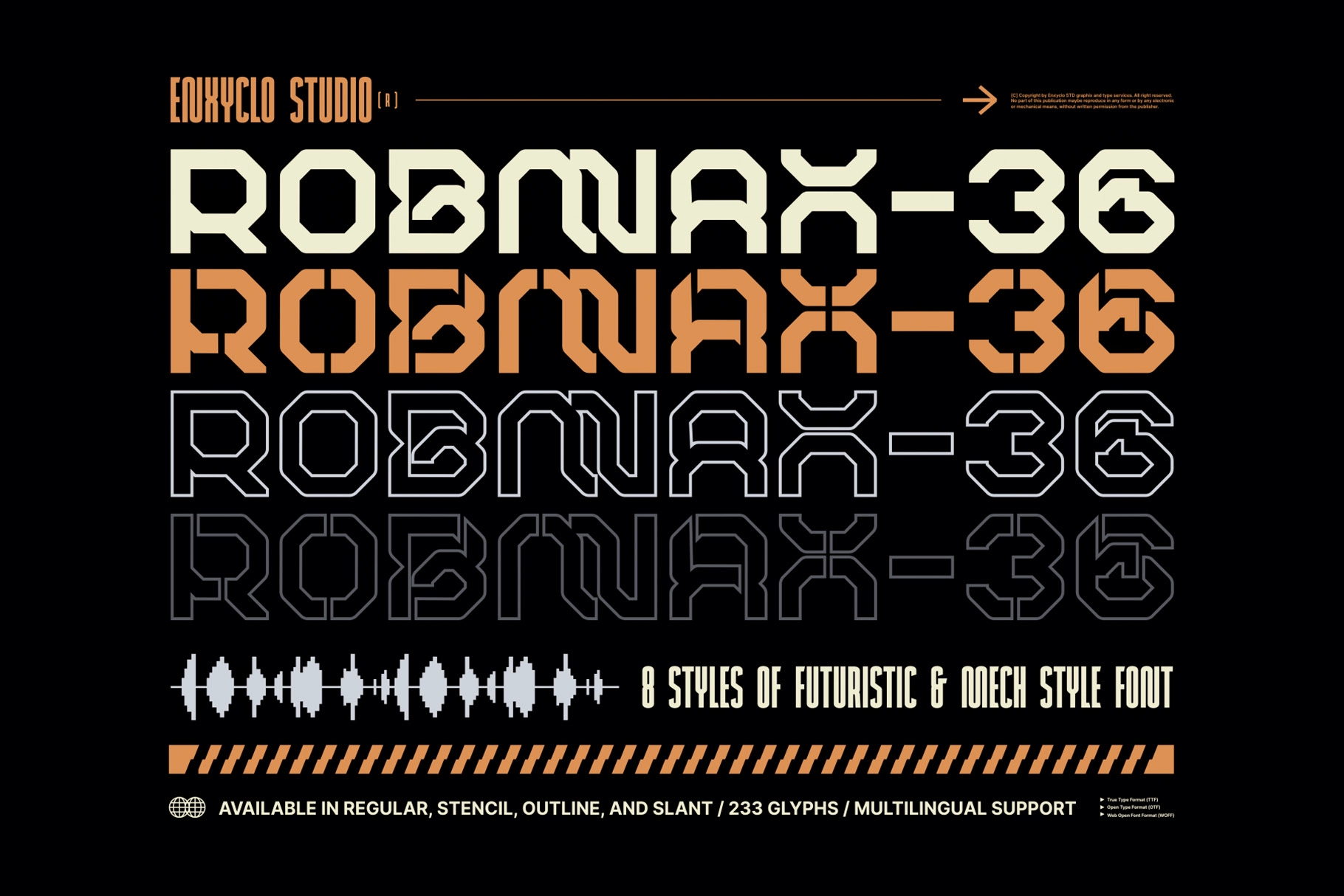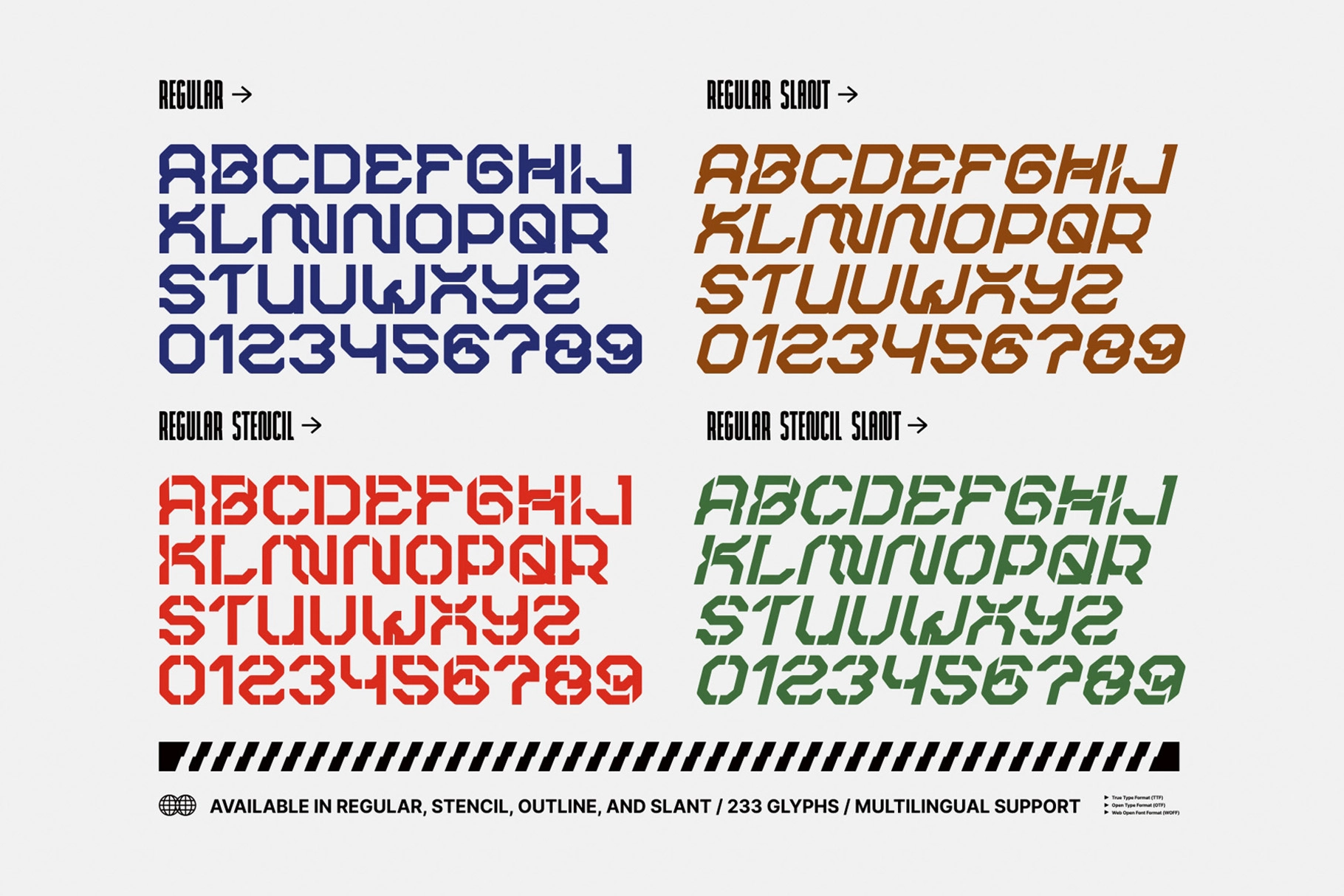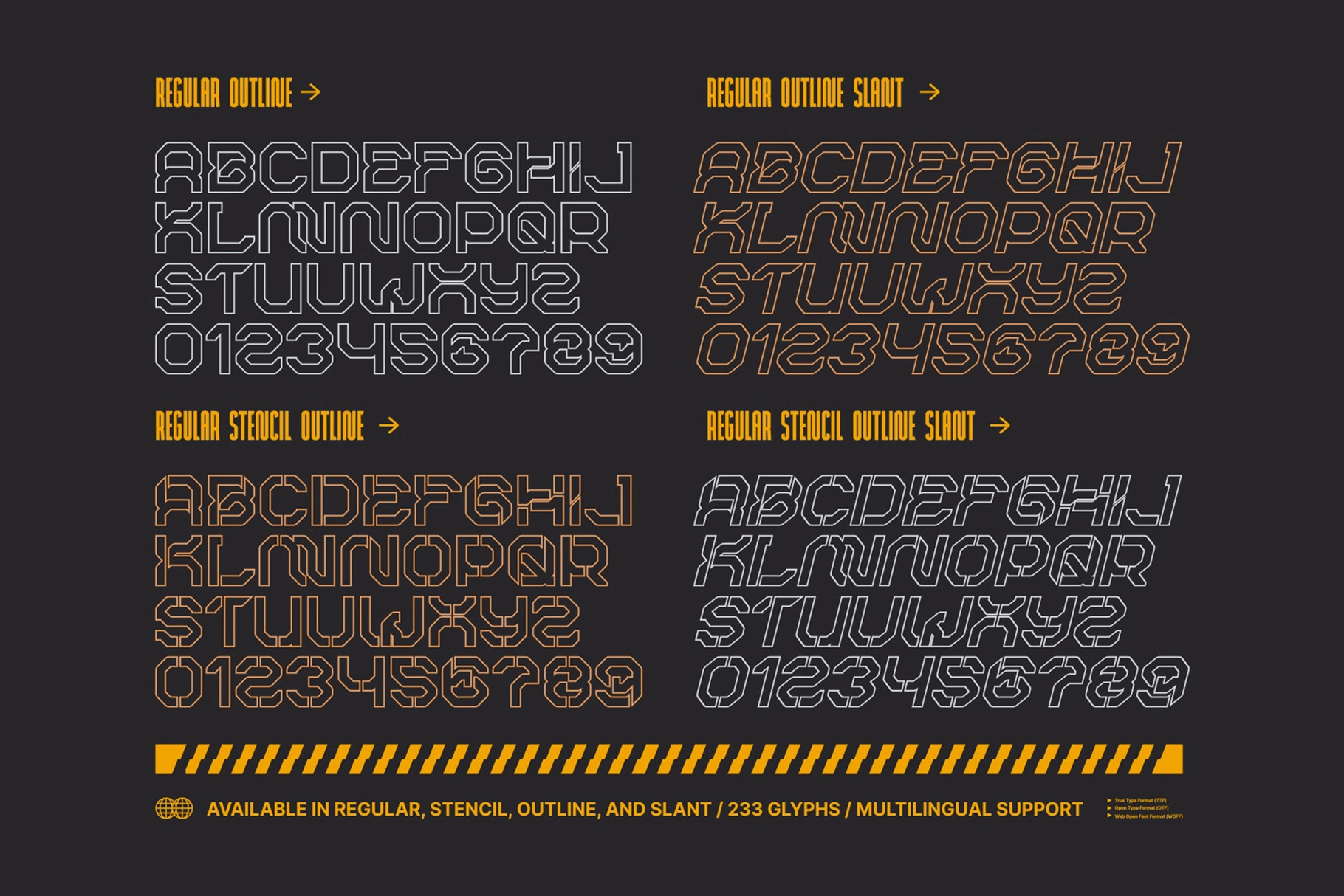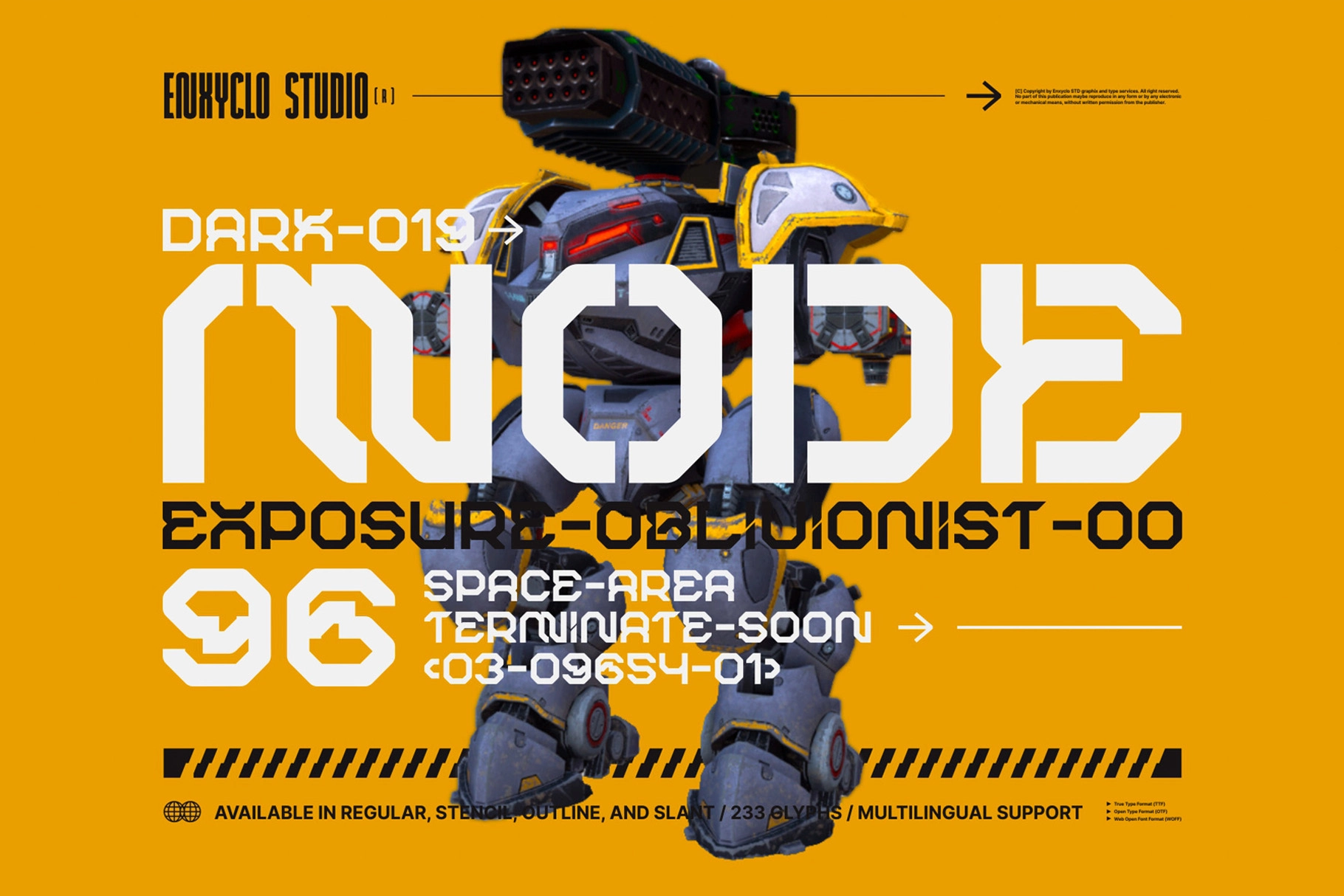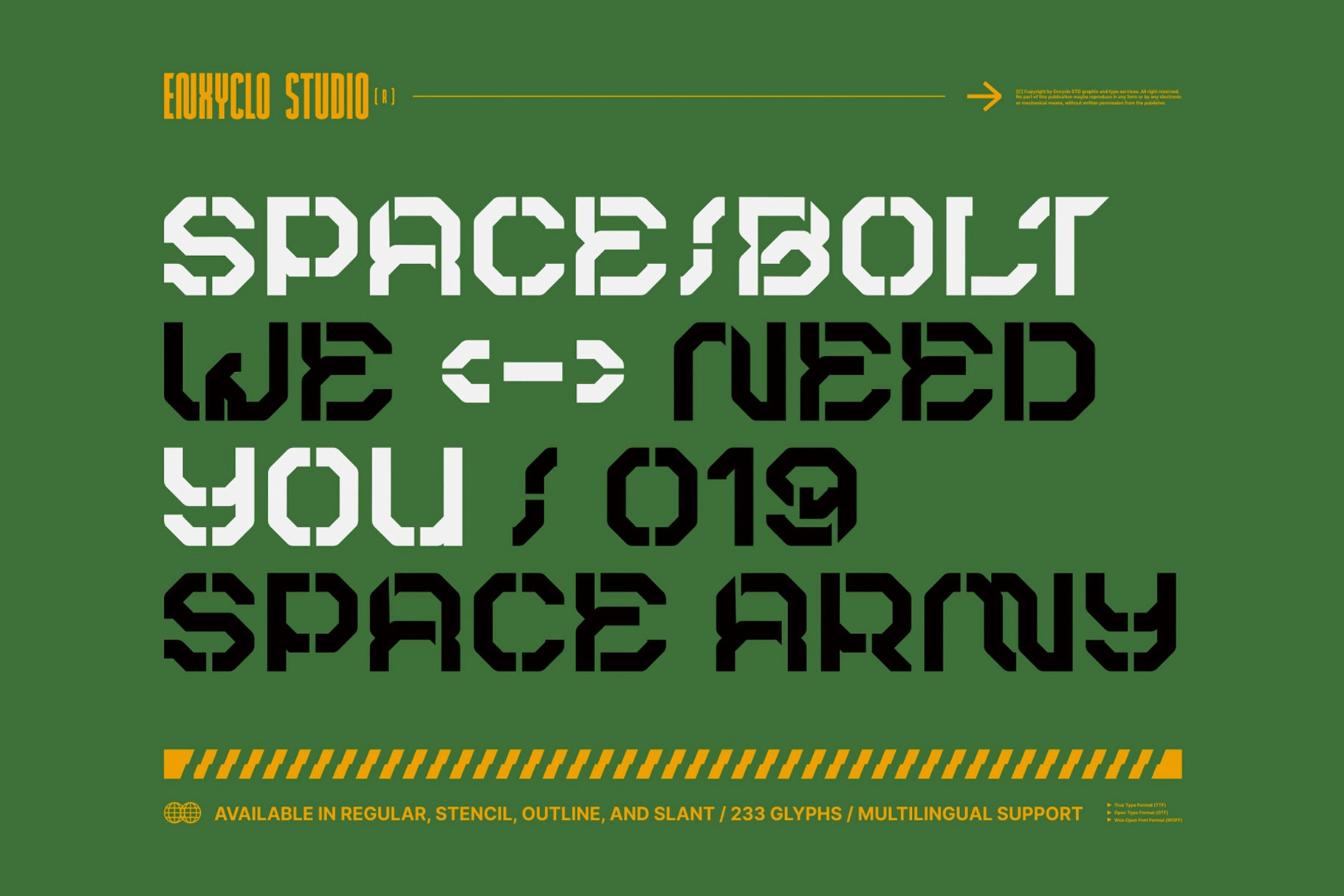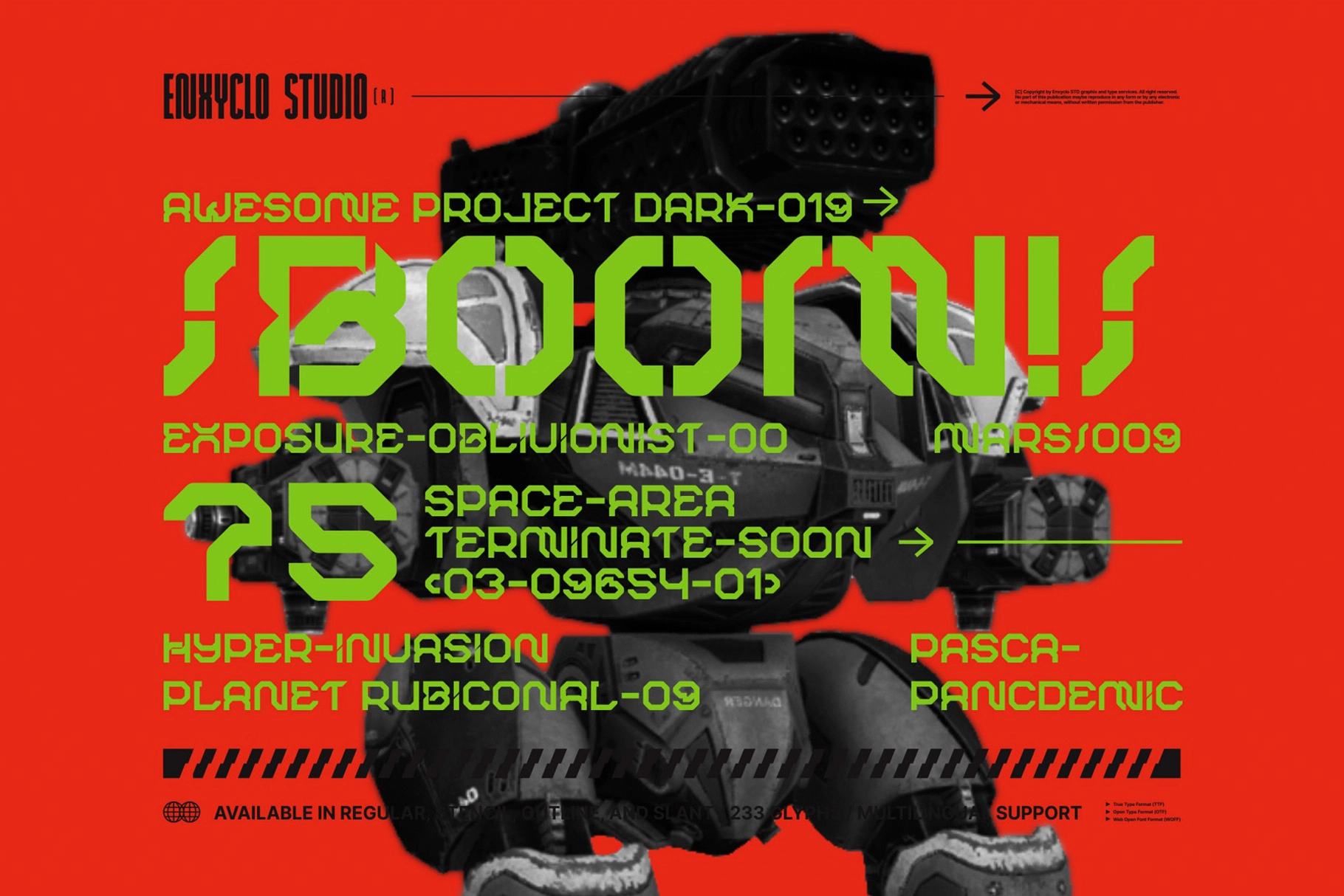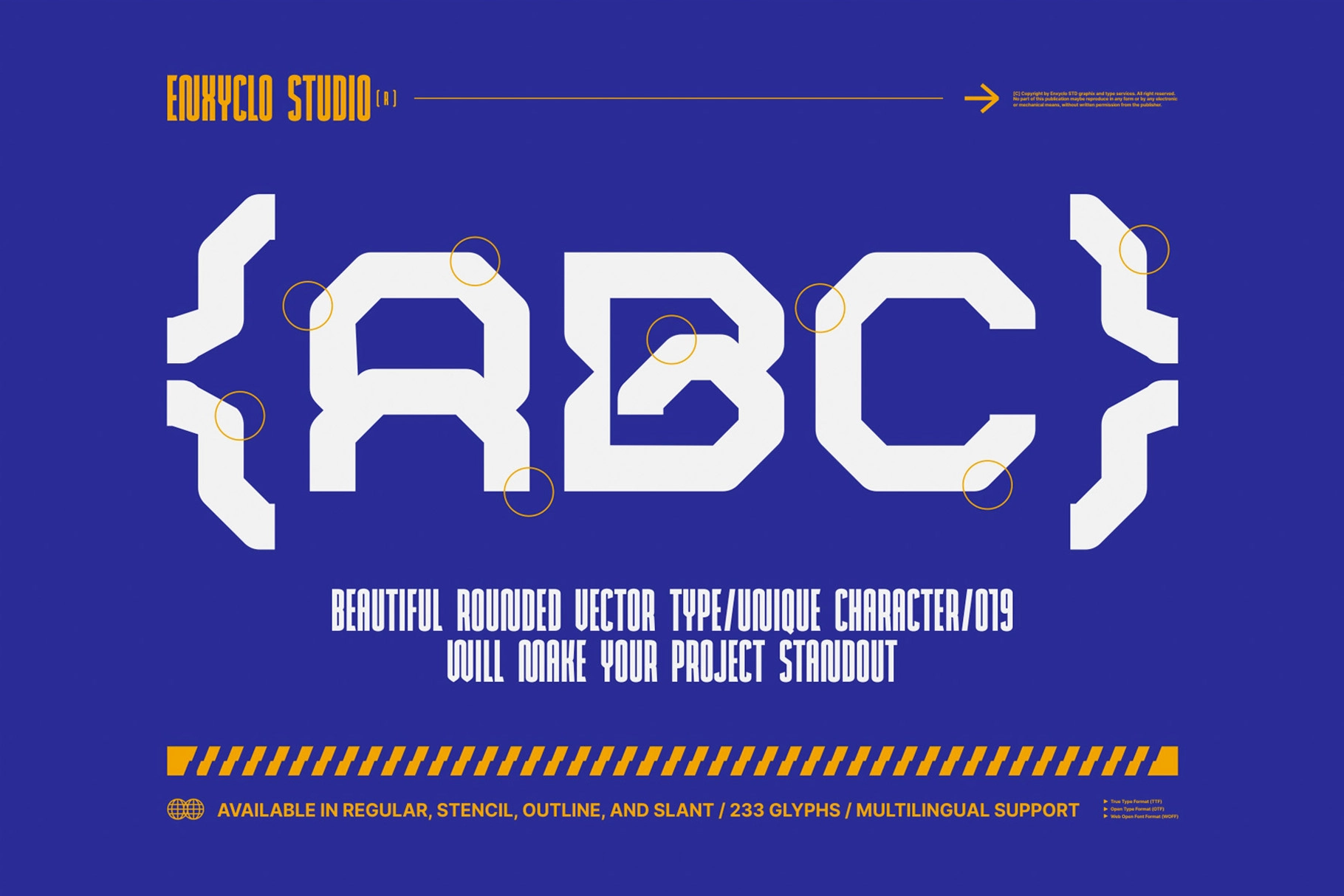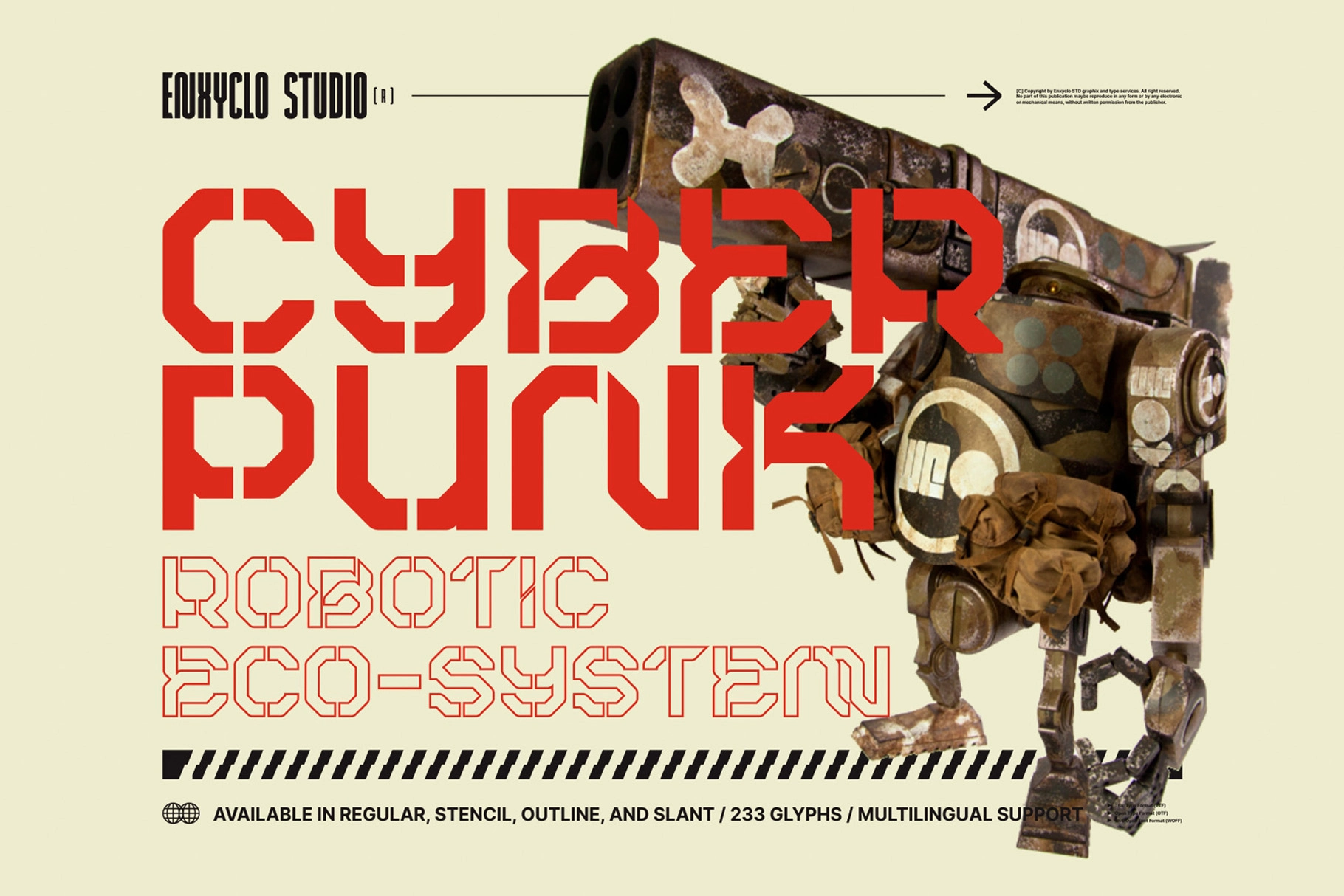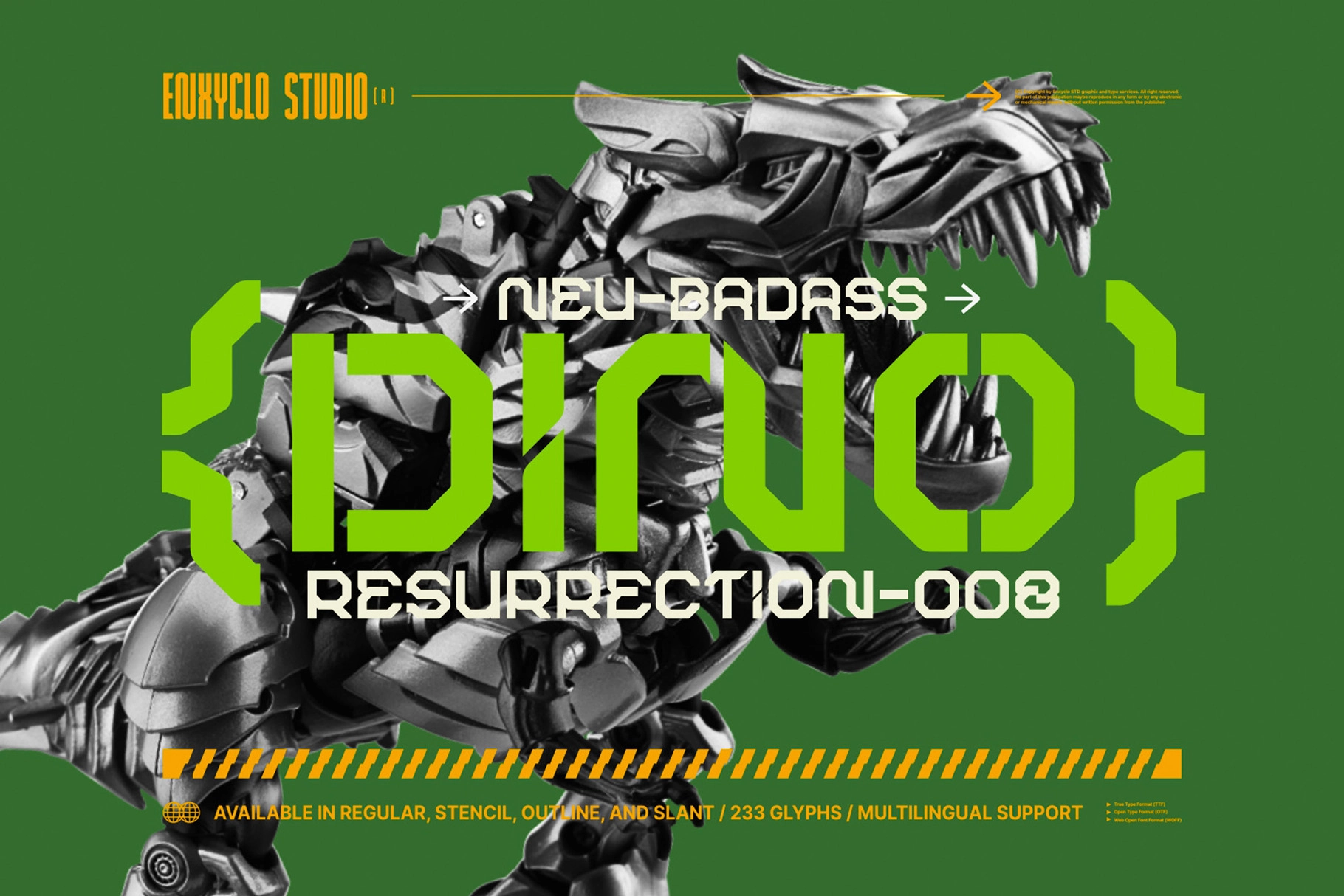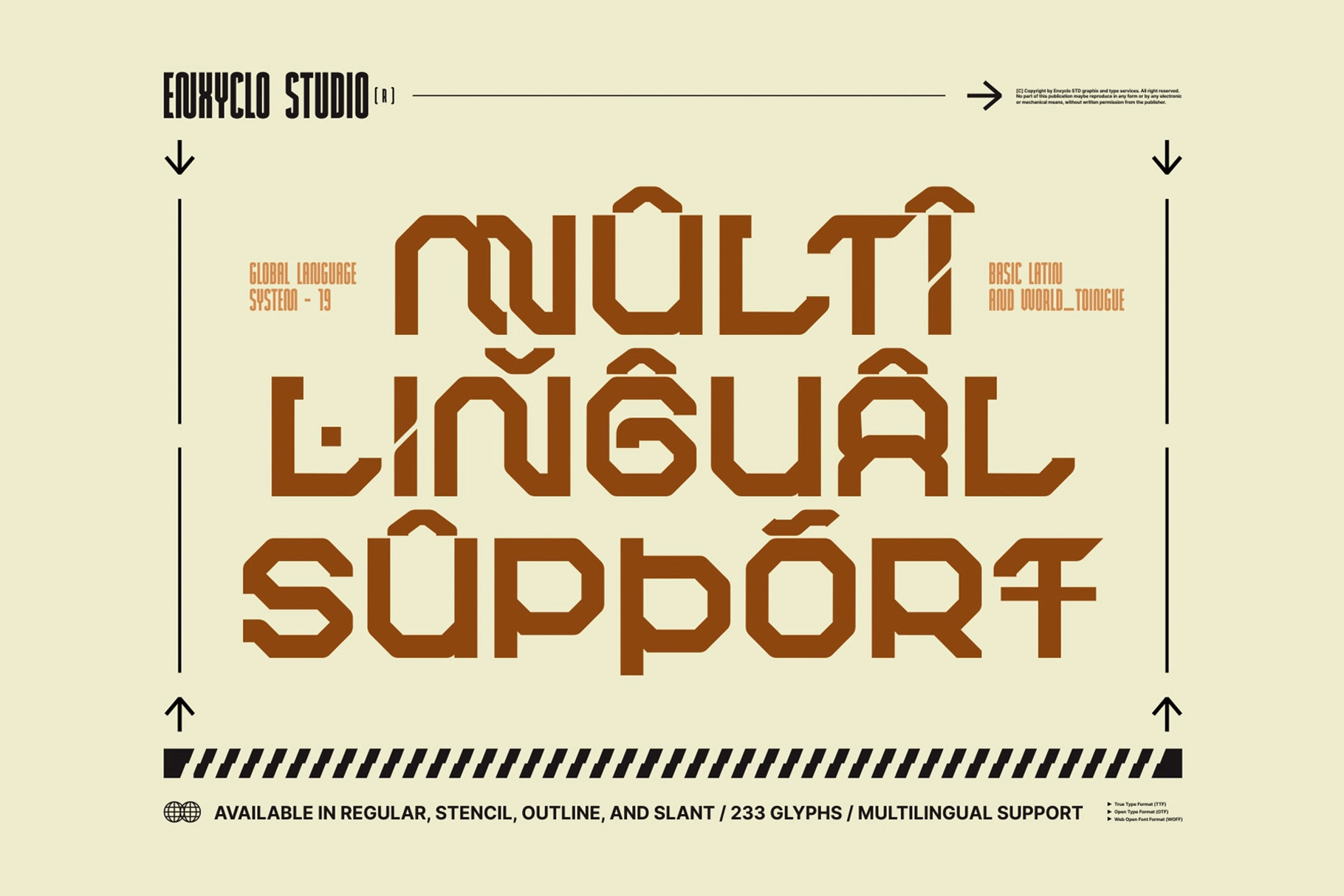
ROBMAX-36 - Futuristic Techno Display Font
ROBMAX-36 Futuristic Techno Display Font presents blocky, segmented letterforms with sharp cuts and mechanical joints that echo industrial and mecha design. The previews show solid, stencil, and outline constructions alongside slanted variants, with tight geometry and modular shapes suited for bold headlines, posters, and tech-driven branding systems.
• 8 styles: Regular, Slant, Outline, Outline Slant, Stencil, Stencil Slant, Stencil Outline, Stencil Outline Slant
• 233 glyphs
• Uppercase letters